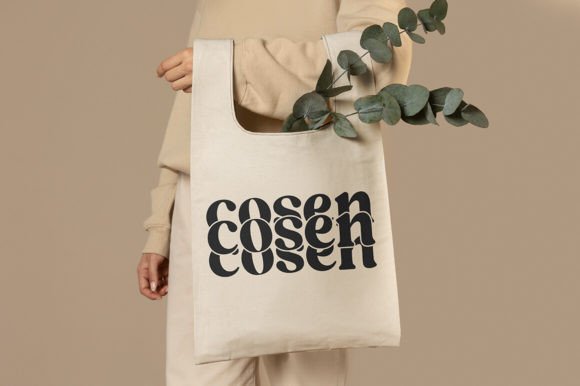
Casino is a stylish stacked font
Casino can be used for various types of design needs such as branding materials, social media, quotes, invitations, business cards, movie covers, and more.
Casino is a stylish stacked font
Casino can be used for various types of design needs such as branding materials, social media, quotes, invitations, business cards, movie covers, and more.